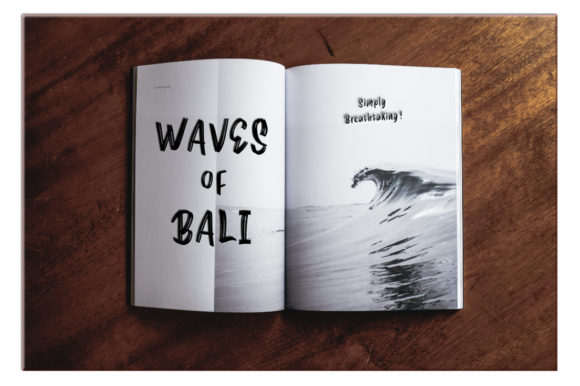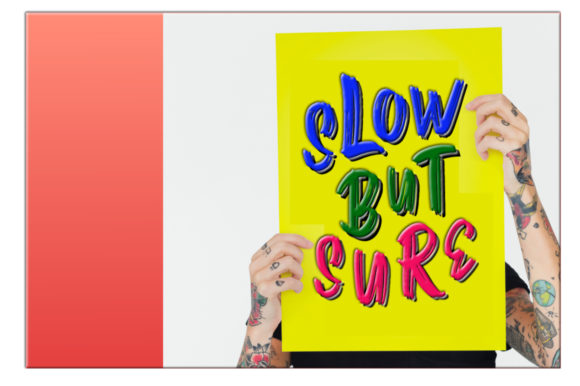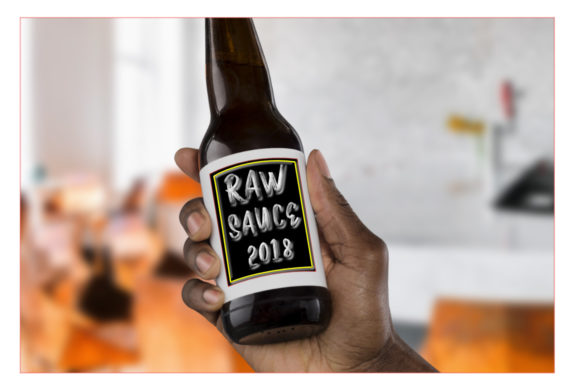
Introduction to Raw Entry Font
Remember that moment when you’re brainstorming ideas for a creative project, and the perfect font just pops into your head? It’s like the entire design comes together in a split second. For many designers, that ‘aha’ moment is often sparked by discovering a unique and authentic font. One such font that’s sure to inspire is the Raw Entry Font, a stunning handwritten font with a natural feel.
With its free download and transparent background, the Raw Entry Font is a high-quality design resource that can elevate any project to new heights. Whether you’re working on a branding campaign, a blog post, or a social media graphic, this font is sure to make your design stand out from the crowd. Its unique charm is not only visually appealing but also versatile enough to work well in a variety of contexts, making it a valuable asset for any designer.
Key Features of Raw Entry Font
- High-quality design resource for creative projects, ideal for use in digital art and graphic design.
- Features a high-resolution design, making it suitable for use in print and digital applications.
- Raw Entry Font is a unique and versatile font, perfect for adding a touch of creativity to any design project.
Honest Review: Raw Entry Font
I recently had the chance to work with the Raw Entry Font, and I must say it’s been a game-changer for my creative projects. This font is perfect for anyone looking for a high-quality, free download that can add a touch of sophistication to their designs.
One of the things I love about Raw Entry Font is its versatility. The font comes in a variety of weights and styles, making it easy to use in a range of creative projects, from logos and branding to digital signage and print materials.
- ✨ High-quality design that looks great on both digital and print materials
- ✨ Wide range of weights and styles for added versatility
- ✨ Transparent background option for easy customization
Overall, I’m really impressed with Raw Entry Font. While it may have a few limitations, its high-quality design and versatility make it a valuable resource for any designer. If you’re looking for a free font that can elevate your creative projects, I highly recommend giving Raw Entry Font a try.
The Raw Entry Font is a high-quality, free download design resource ideal for creative projects. Its transparent background makes it versatile for use in various applications.
Tips for Getting the Most Out of Raw Entry Font
For optimal results, use the Raw Entry Font in combination with other design resources, and experiment with different font sizes and styles to achieve a unique look.
The Raw Entry Font is ideal for use in creative projects such as logos, brochures, and social media graphics. Its high-quality design makes it suitable for professional and personal use cases alike.
Q: What is the resolution and quality of the Raw Entry Font?
The Raw Entry Font has a high resolution and quality, making it suitable for use in a variety of creative projects, from print design to digital art. The font is available in multiple sizes and styles, ensuring that you can use it to create high-quality designs that meet your needs.